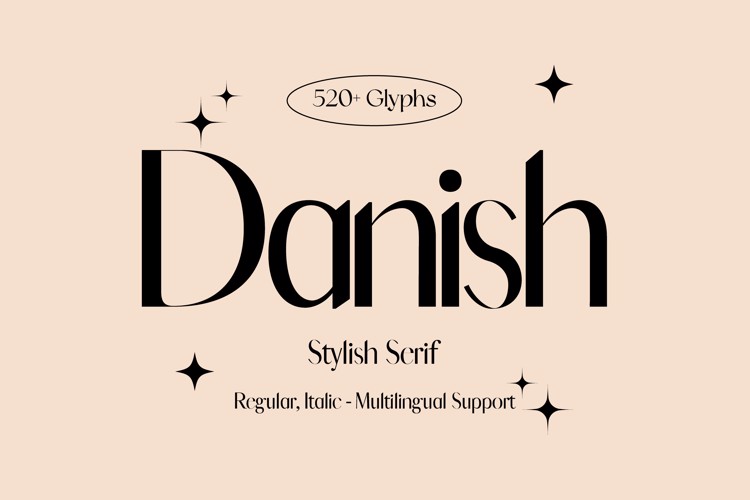
Danish Font
π¨ Font Name: Danish by Minimalist Art Studio
π¨ Font Description: Danish is a stylish serif with 520+ glyphs and multilingual supportβperfect for editorial elegance, branding, and luxury packaging.
β Complete Latin set + multilingual diacritics
β Alternates, stylistic sets & ligatures
β Numbers, small caps, and extended punctuation
β Bonus italics and family styles